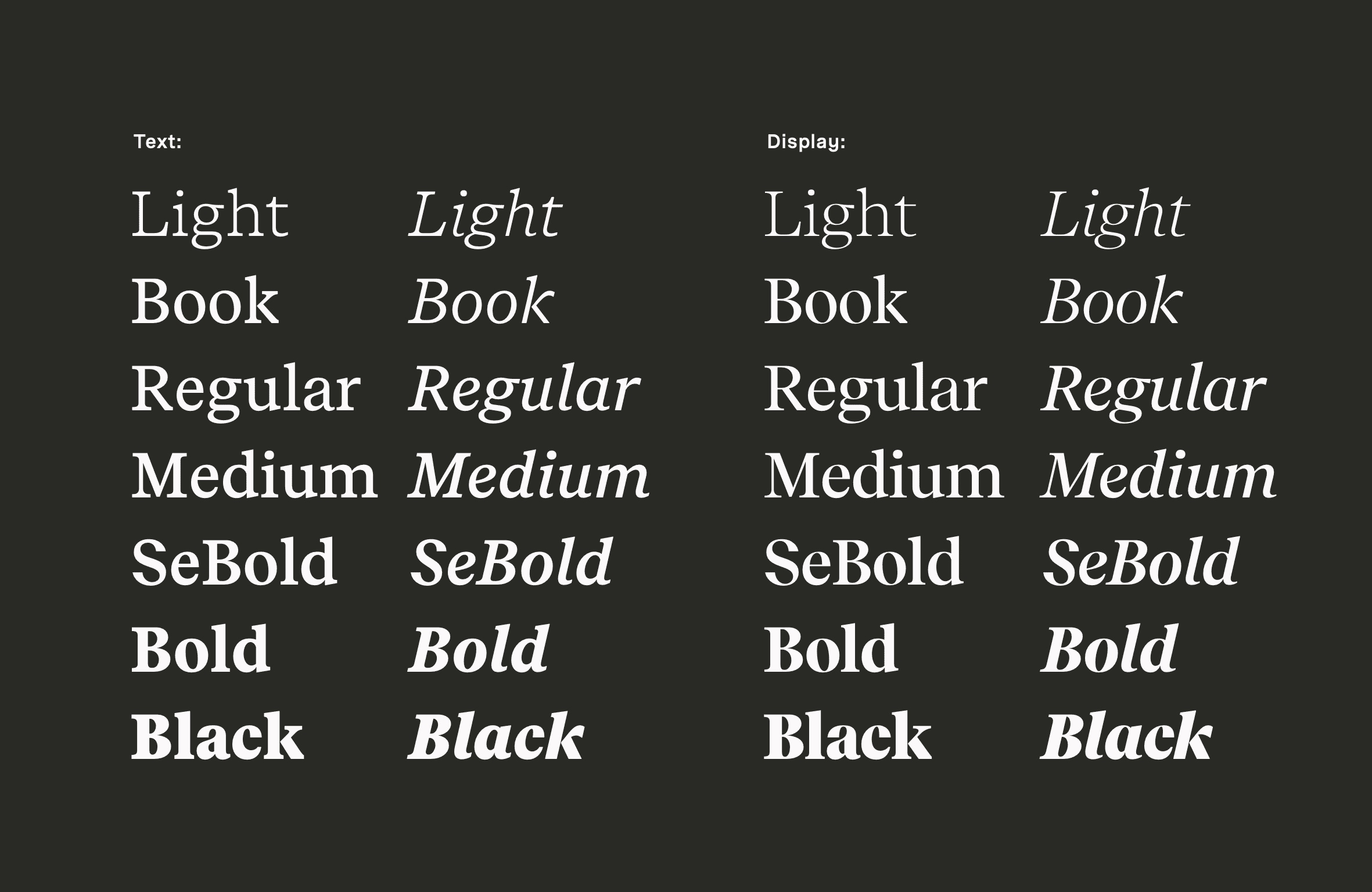
Recife Font
Recife Font is perfect for Brazilian restaurant branding, tropical resort marketing, beach club signage, Latin music festival posters, carnival event graphics, travel agency advertisements, cultural center displays, and vibrant lifestyle campaigns.
What makes Recife Font exciting is its dynamic energy that captures the vibrant spirit of Brazilian culture and coastal living. The font features lively letterforms with rhythmic movement and expressive character variations that evoke the colorful atmosphere of beach festivals, samba music, and tropical celebrations. Its distinctive styling and cultural authenticity transport viewers to sun-soaked beaches and lively street parties, making every message feel like an invitation to experience joy and adventure.
The Recife Font family includes regular weight with uppercase and lowercase letters, numerals, punctuation marks, and special characters. Some versions may feature stylistic alternates and decorative elements that enhance the festive, cultural aesthetic perfect for entertainment and hospitality applications.
This exuberant display typeface brings instant celebration and cultural richness to any design project. Recife Font Free Download offers exceptional value for businesses in tourism, entertainment, and hospitality industries seeking to communicate excitement, cultural authenticity, and tropical lifestyle appeal.
The festive character of Recife Font makes it particularly effective for destination marketing, cultural events, and Latin-inspired dining establishments. Its excellent visibility ensures promotional materials capture attention while maintaining the distinctive Brazilian aesthetic that customers associate with vibrant experiences and authentic cultural celebrations.
Tourism professionals and event designers appreciate how Recife Font effortlessly conveys celebration and cultural depth. The font's dynamic rhythm and expressive variations create memorable marketing materials that establish connections with audiences seeking authentic cultural experiences and tropical adventures.
The versatile celebration of this typeface extends to dance studios, music venues, and lifestyle brands where cultural authenticity enhances brand appeal. Recife Font Free Download provides creative professionals with a valuable tool for developing engaging, culturally-rich designs that resonate with audiences who embrace celebration, cultural diversity, and the infectious energy of Brazilian coastal culture in their entertainment and lifestyle choices.